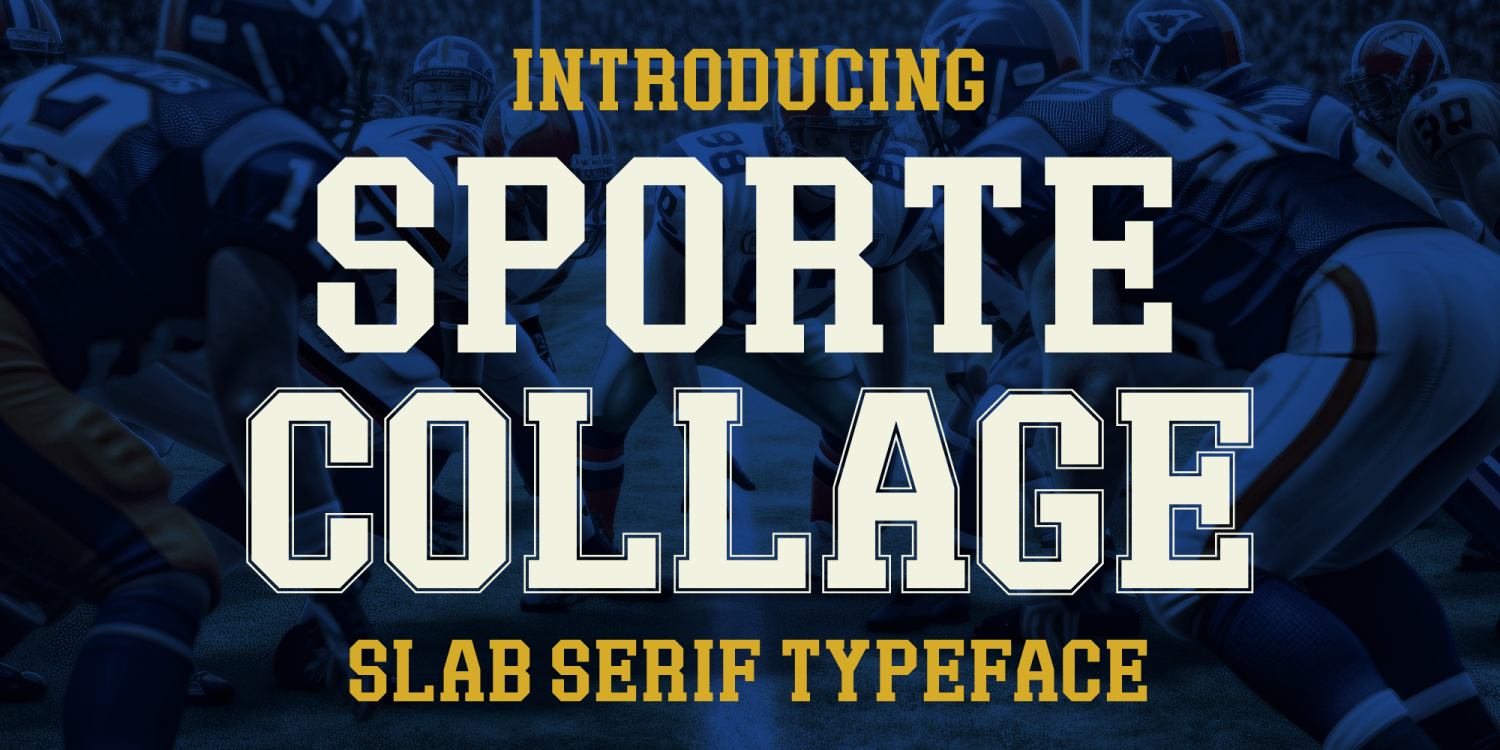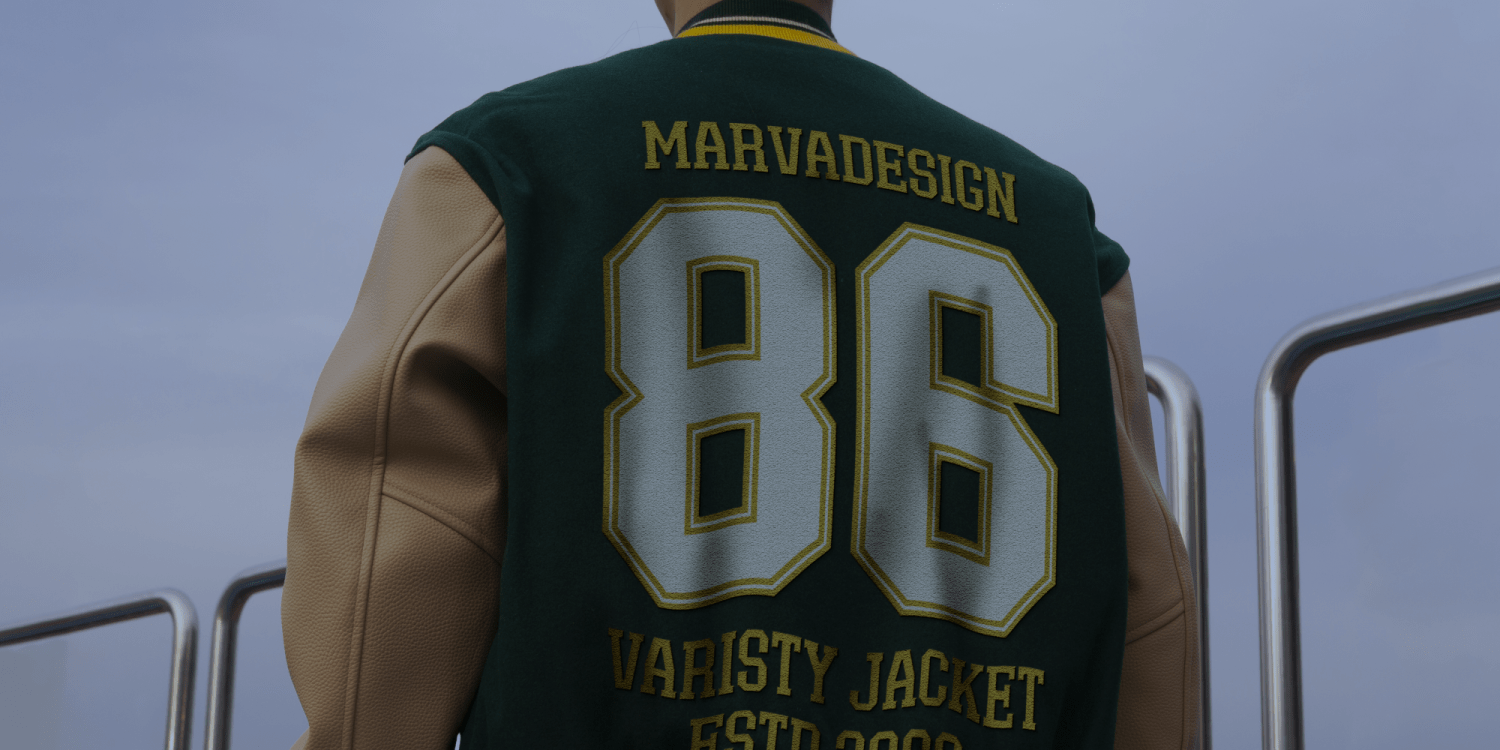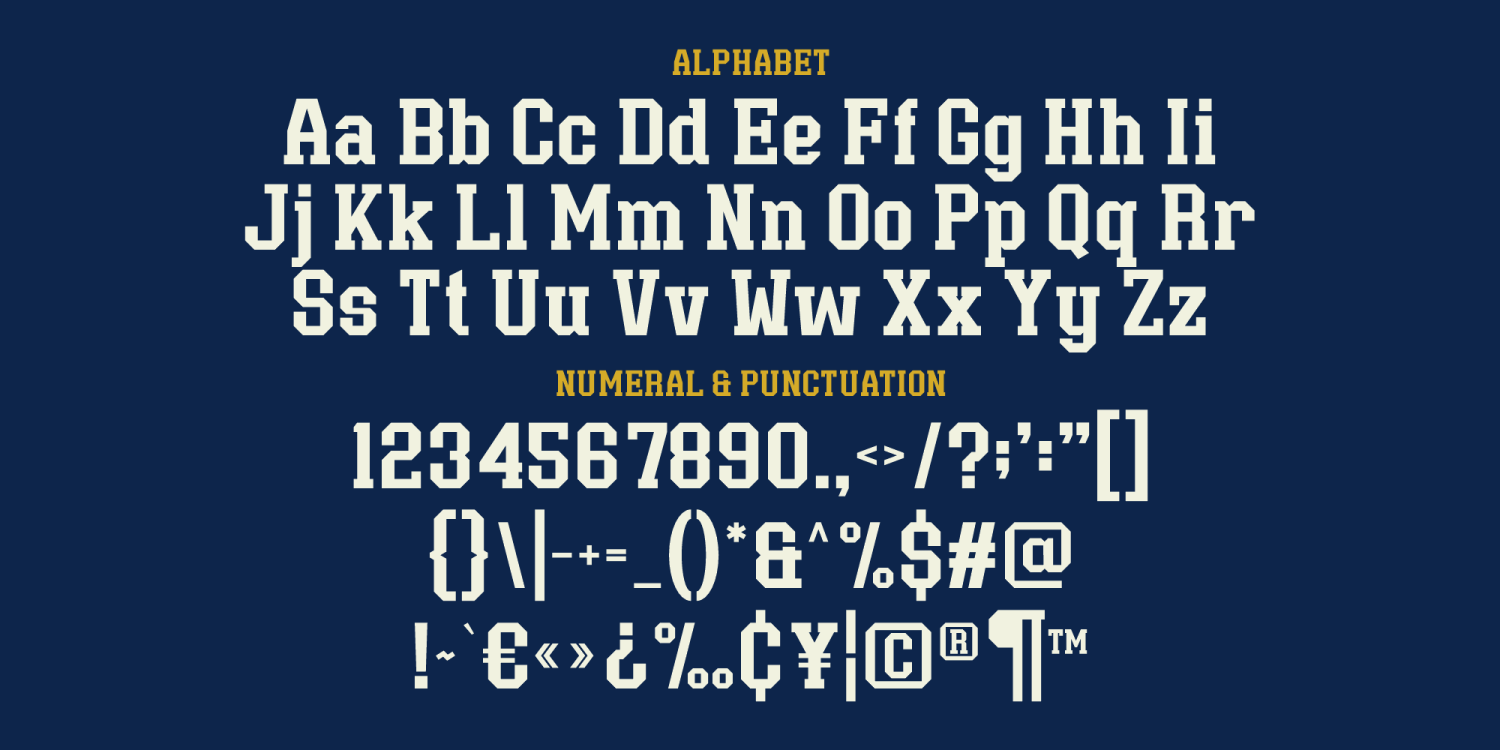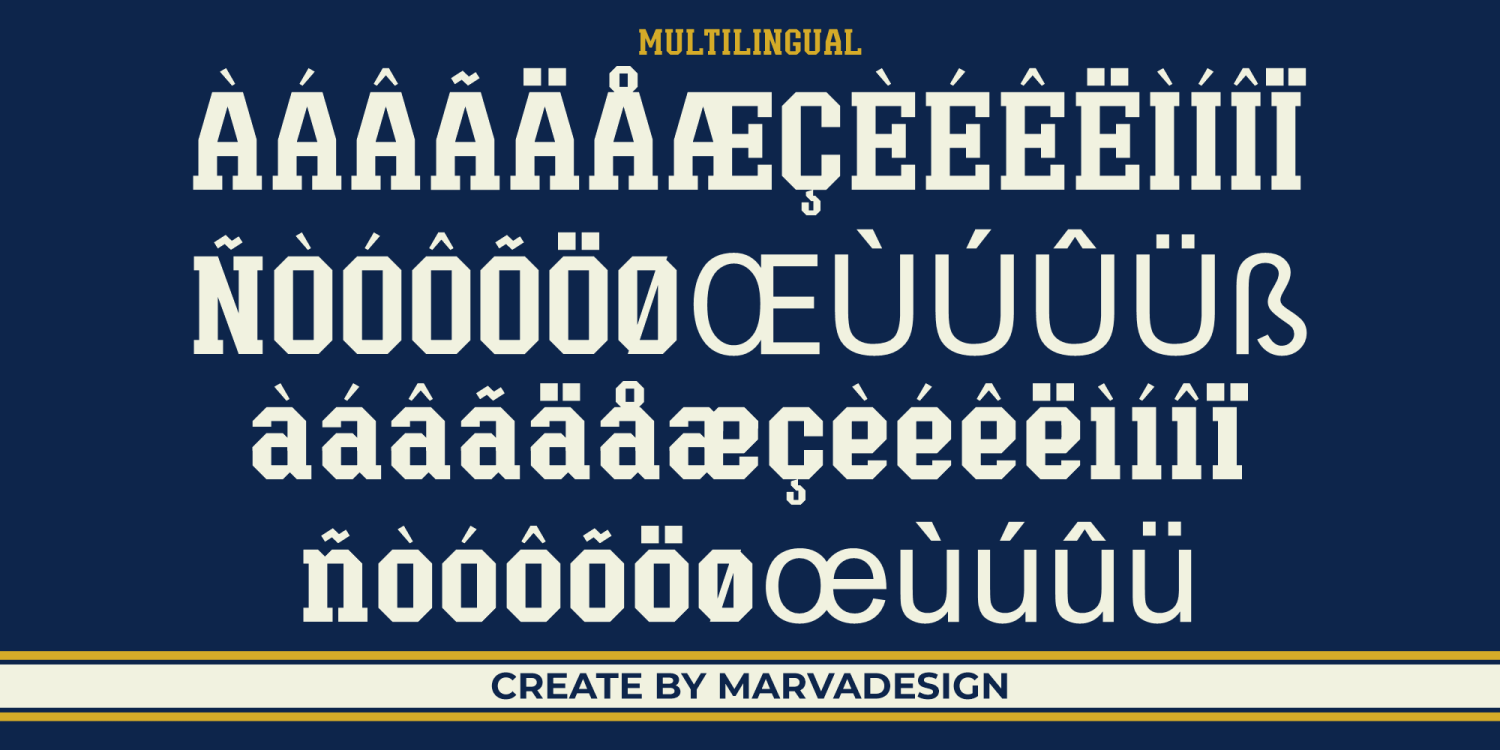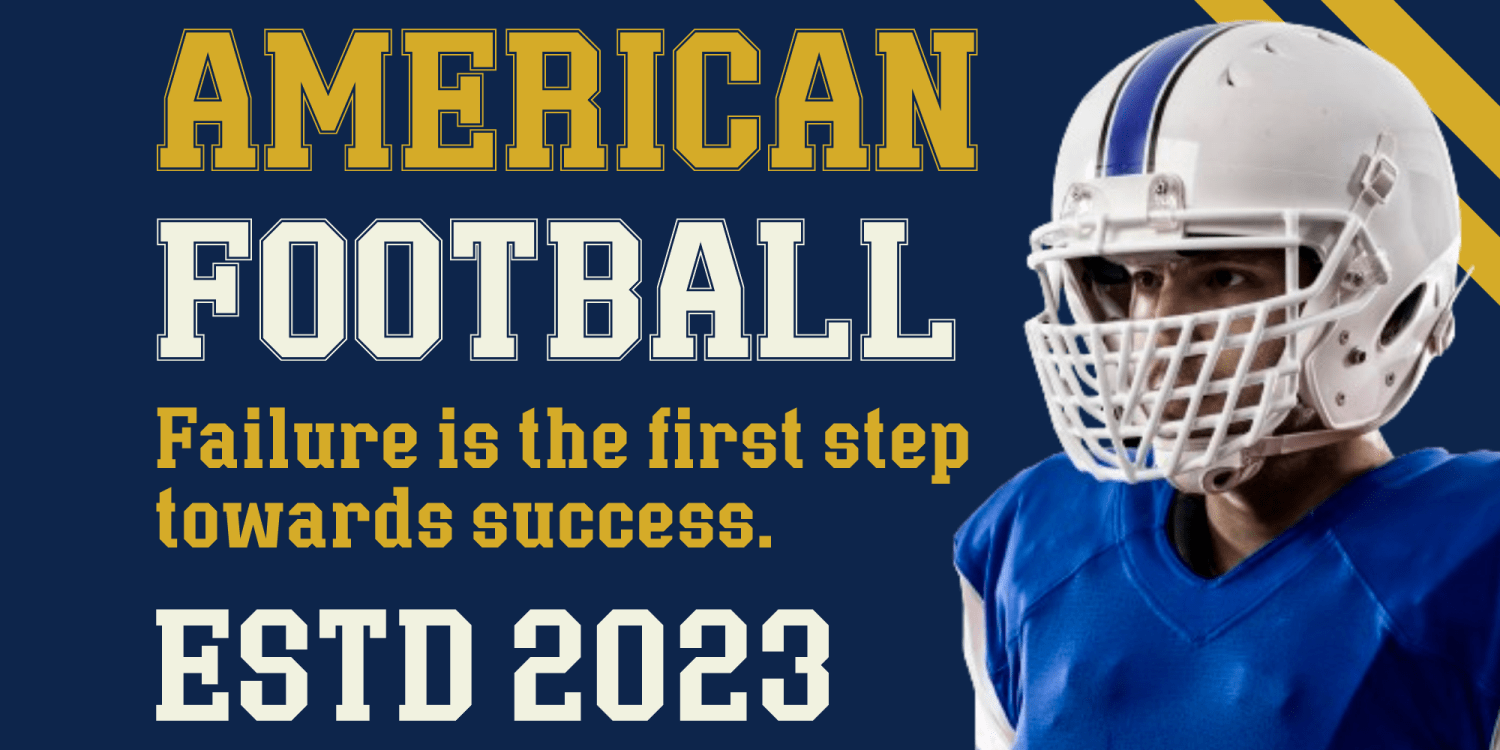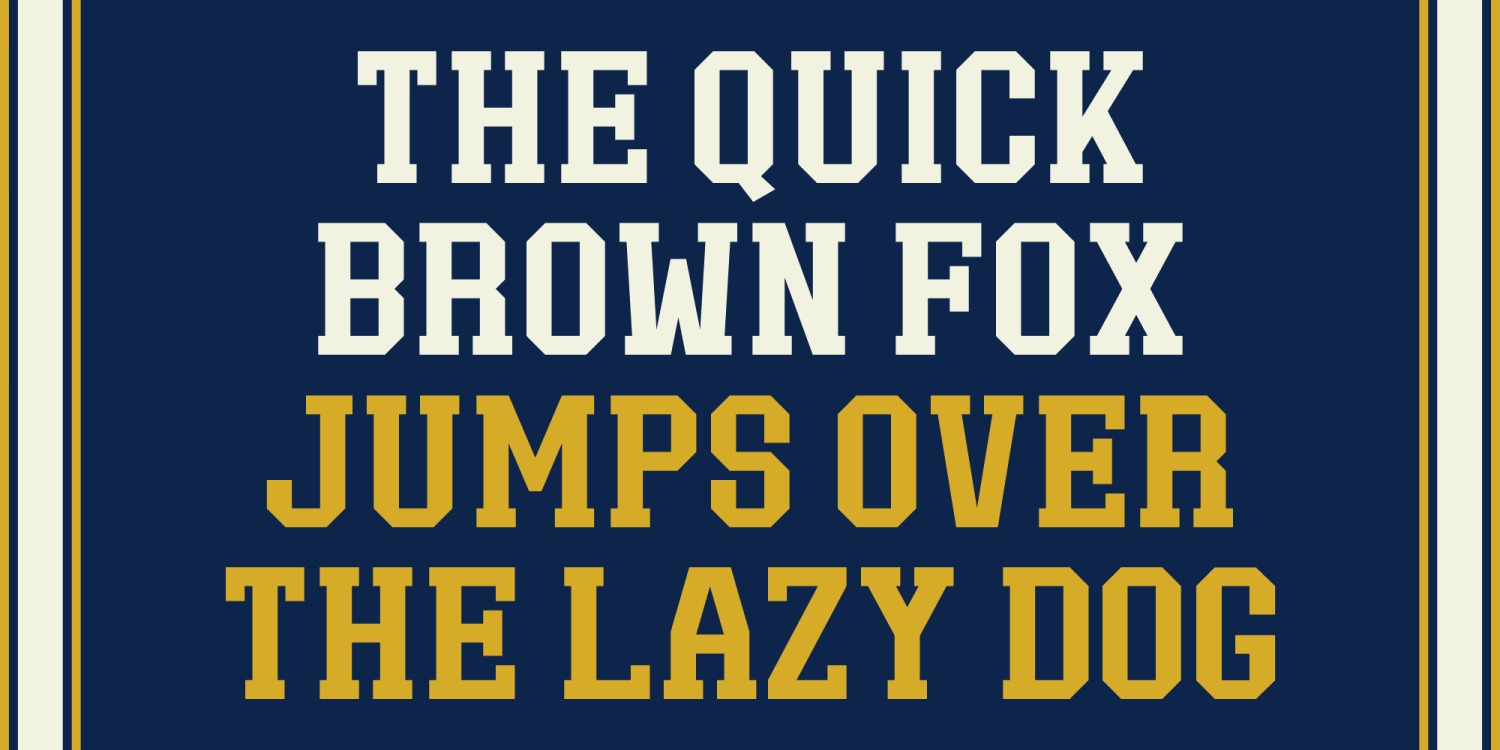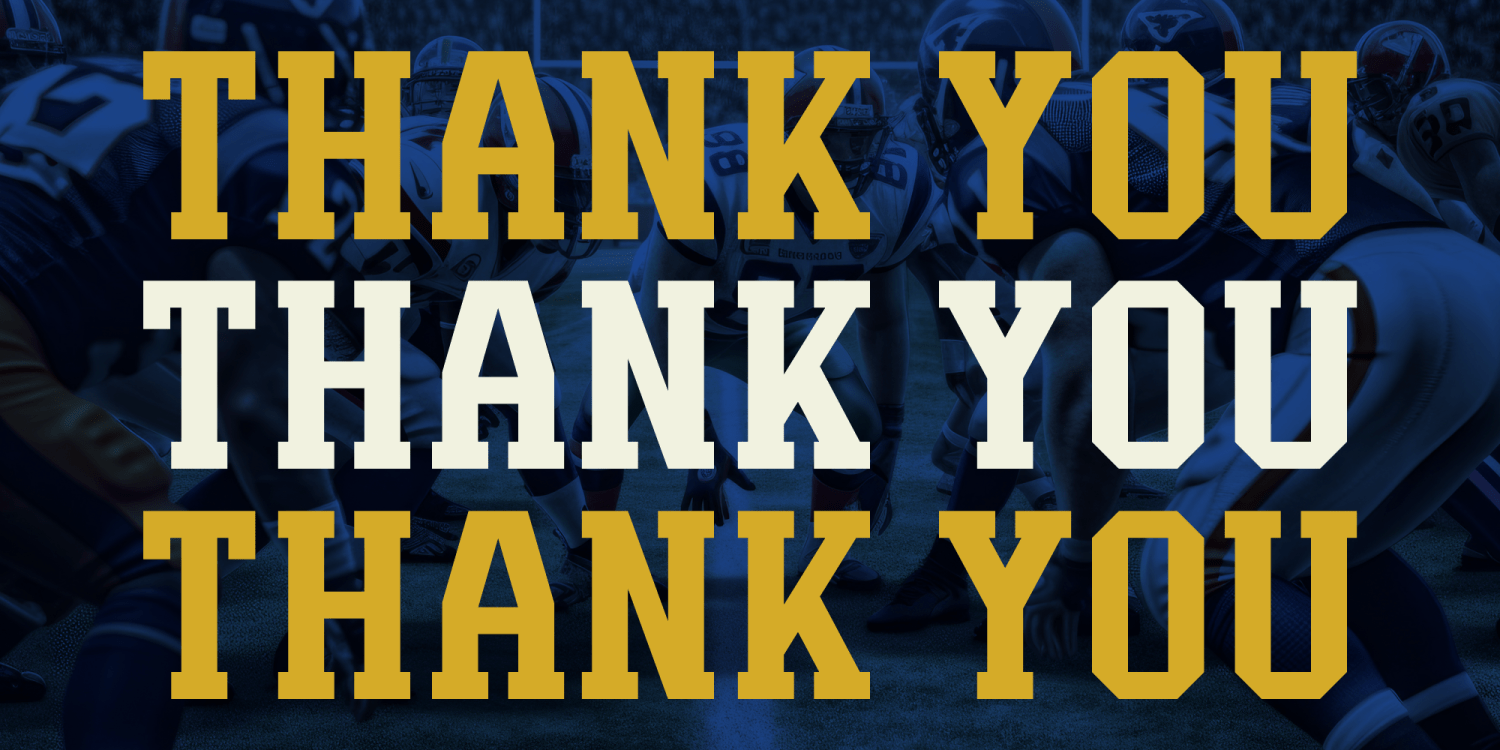
Sporte College
Introducing Sporte College is a bold and structured slab serif typeface, designed to convey strength, confidence, and a distinctly collegiate or athletic aesthetic. The typeface features thick, blocky letterforms with strong serifs, giving it a robust and authoritative presence. Its geometric structure ensures excellent readability, making it ideal for sports branding, varsity-themed apparel, and bold headline typography.
One of the standout characteristics of this font is its well-balanced proportions and clean edges, which enhance its versatility across various design applications. The capitalized lettering maintains a uniform height, reinforcing its bold and impactful nature. Additionally, the font includes a full set of uppercase and lowercase letters, numerals, and an extensive range of punctuation marks and special symbols, making it highly functional for diverse typographic needs.
This slab serif typeface is perfect for use in sports jerseys, university merchandise, posters, and promotional materials where a powerful and dynamic look is required. Its classic yet modern appeal ensures that it remains timeless while effectively capturing the essence of team spirit and competitive.